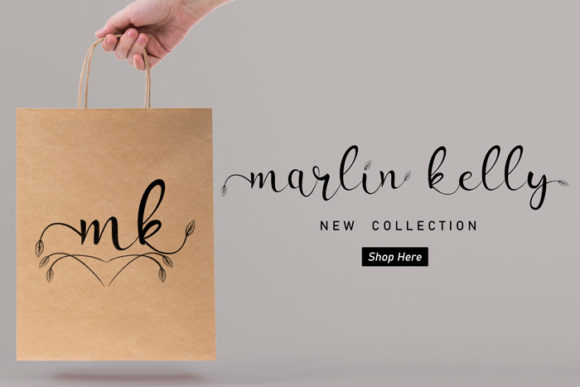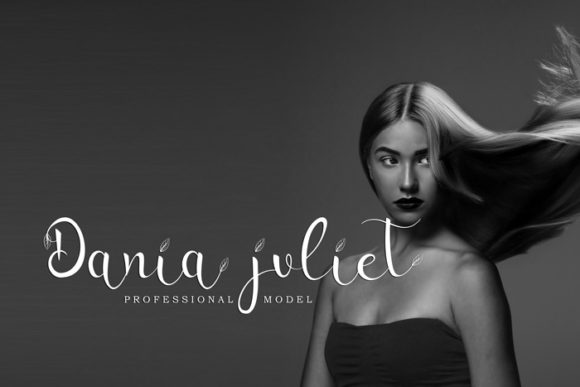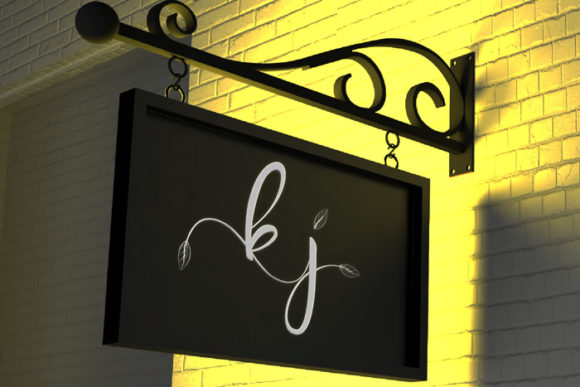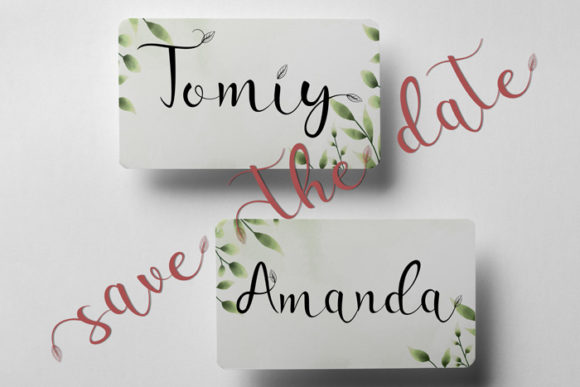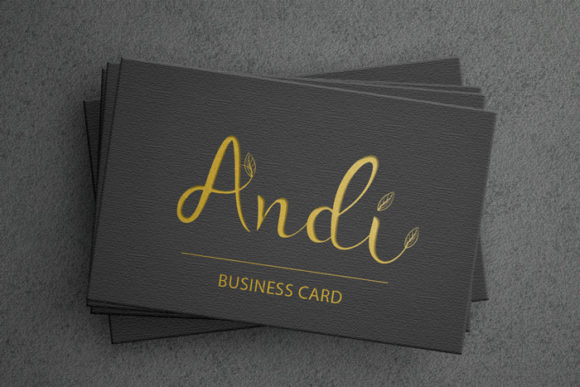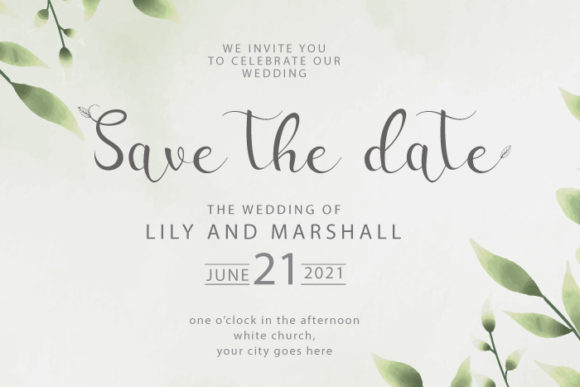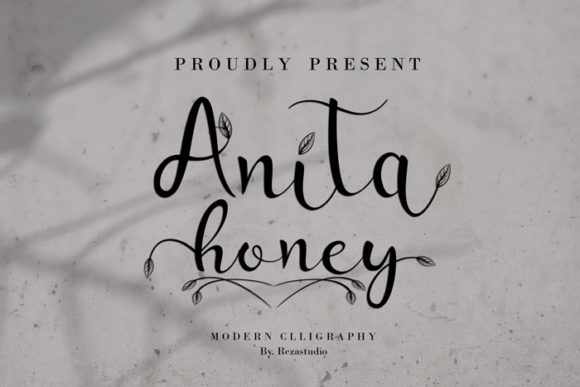
The Sweetest Font You’ll Fall in Love With: Anita Honey
I’ll never forget the time I was working on a project for a client who wanted a playful, yet elegant font to match their brand’s personality. I scoured the internet, tried countless fonts, but nothing seemed quite right. That was until I stumbled upon Anita Honey, an adorable quirky handwritten font that instantly captured the essence of what my client was looking for. In this article, I’ll share my love for Anita Honey, its features, and how you can use it to elevate your designs.
A Personal Review: What I Love About Anita Honey
Anita Honey is more than just a font – it’s an experience. Here are a few things that make it stand out:
- ✨ Adorable and quirky handwritten style that’s perfect for adding a personal touch to your designs
- 🎉 Extensive character set, including glyphs and stylistic alternates, to keep your designs fresh and exciting
- 💕 Beautifully crafted to evoke a sense of joy and playfulness
While Anita Honey is an amazing font, there are a few things to keep in mind:
- 🤔 Some characters, like the uppercase letters, can be a bit more condensed than others, which may affect spacing
- ⚠️ Not ideal for body text or long-form content, as it’s best suited for headlines, titles, and short paragraphs
The Story Behind Anita Honey
Anita Honey was designed with love and care by a talented font designer who wanted to create a font that would bring joy and playfulness to designs. The font’s name, Anita Honey, is inspired by the designer’s grandmother, Anita, who was known for her sweet and caring personality.
| What type of designs is Anita Honey best suited for? | Anita Honey is perfect for creating beautiful stationery, eye-catching social media posts, and other designs that require a playful, yet elegant touch. |
| Is Anita Honey a difficult font to read? | No, Anita Honey is highly legible, even at small font sizes, making it perfect for use in a variety of designs. |
In conclusion, Anita Honey is a beautiful, quirky handwritten font that’s perfect for adding a touch of joy and playfulness to your designs. With its extensive character set, highly legible style, and adorable personality, it’s no wonder why Anita Honey has become a favorite among designers and crafters. So why not give it a try and see how it can elevate your designs?